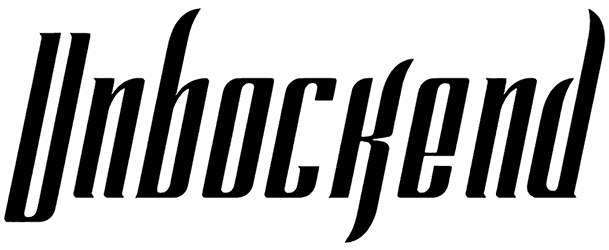
Unbockend is a wonderful serif font that is capable of adding a classic touch to branding, stationaries, web page templates, or social media posts. This luxury font would be the best alternative for formal serif fonts for those graphic artists who crave their editorial projects to look more distinct. Aside from the lack of numbers, it carries a feeling of futuristic, elegant, and dynamic.